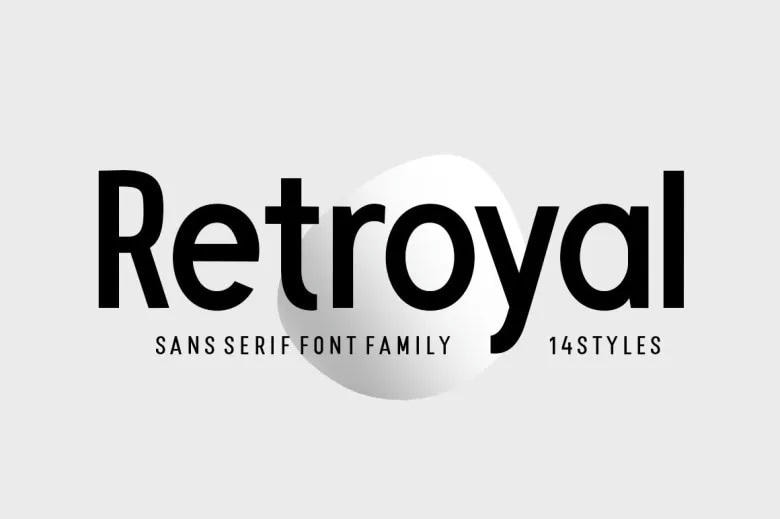
Retroyal Font Family
Retroyal is a sans-serif font with clean lines and a modern look. It offers seven weights, each with matching italics. Subtle details give it warmth, so it works well for magazines, posters, ads, packaging, headlines, and web projects.
Retroyal Sans Serif Font Family